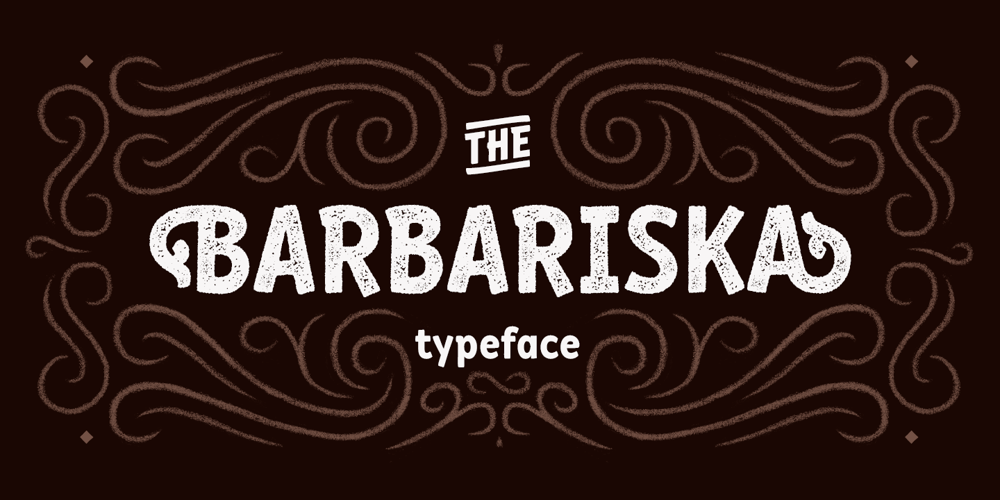
RF Barbariska Font Family was designed by Misha Panfilov and published by Russian Fonts. RF Barbariska contains 6 styles and family package options. Handcrafted typeface with a friendly character. Two weights in three styles. Weights: Regular and Oblique. Styles: normal, rough1, rough2. Weight and shape of the letters allows using the font to solve any graphical problems. Package design for food or cosmetic products. Posters or music cover. Logos. Prints on sweatshirts or t-shirts. Children’s books or comics. Barbariska could be used in all sorts of projects. Features: ligatures, contextual alternates, old style numbers, fina and init for capitals letters. Support: cyrillic, cyrillic extended, latin, latin extended (Western European, Central European, South-East).